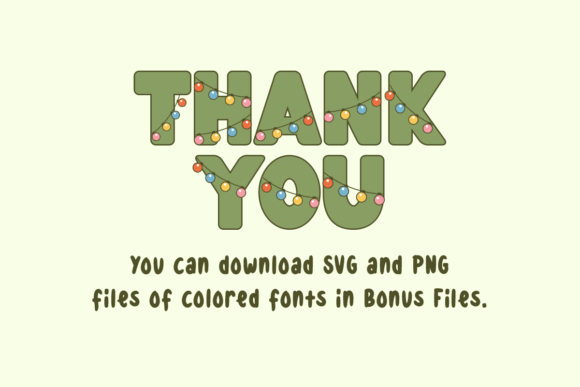
Spruce Light Font
Spruce Light is a cute and festive color font. Christmas themed font. and is suitable for shirts, crafts, and cards and will instantly enhance your projects!